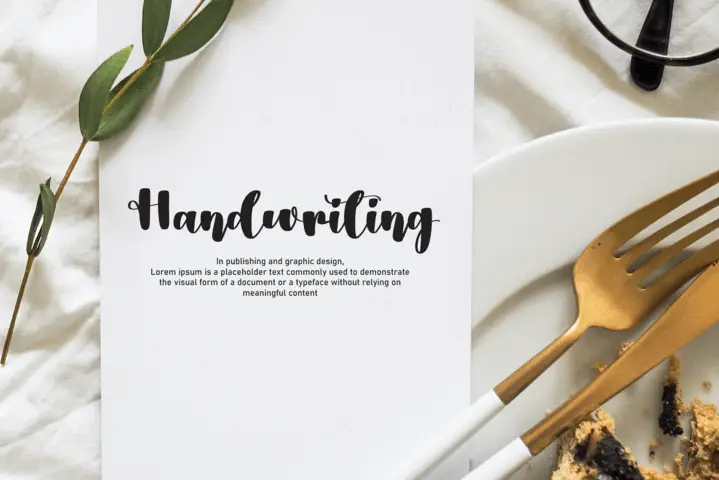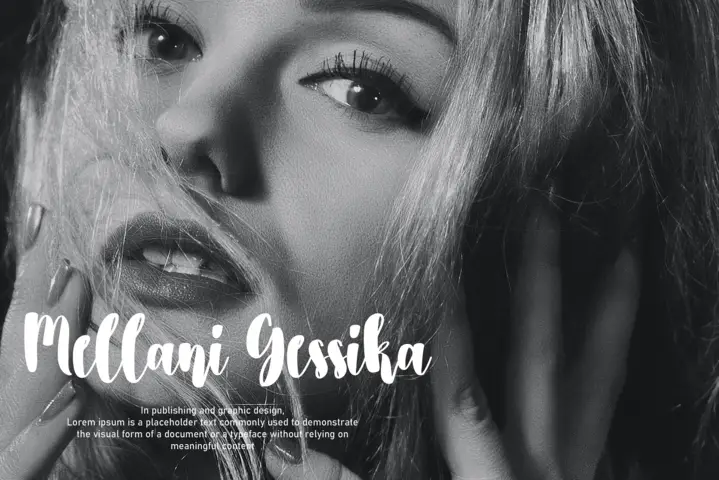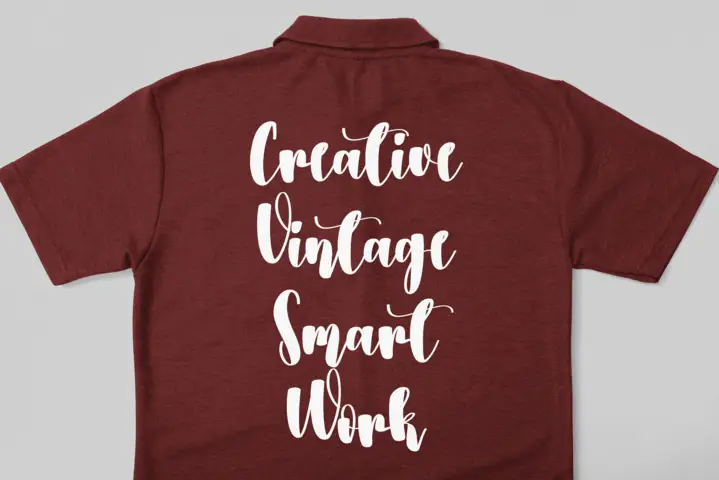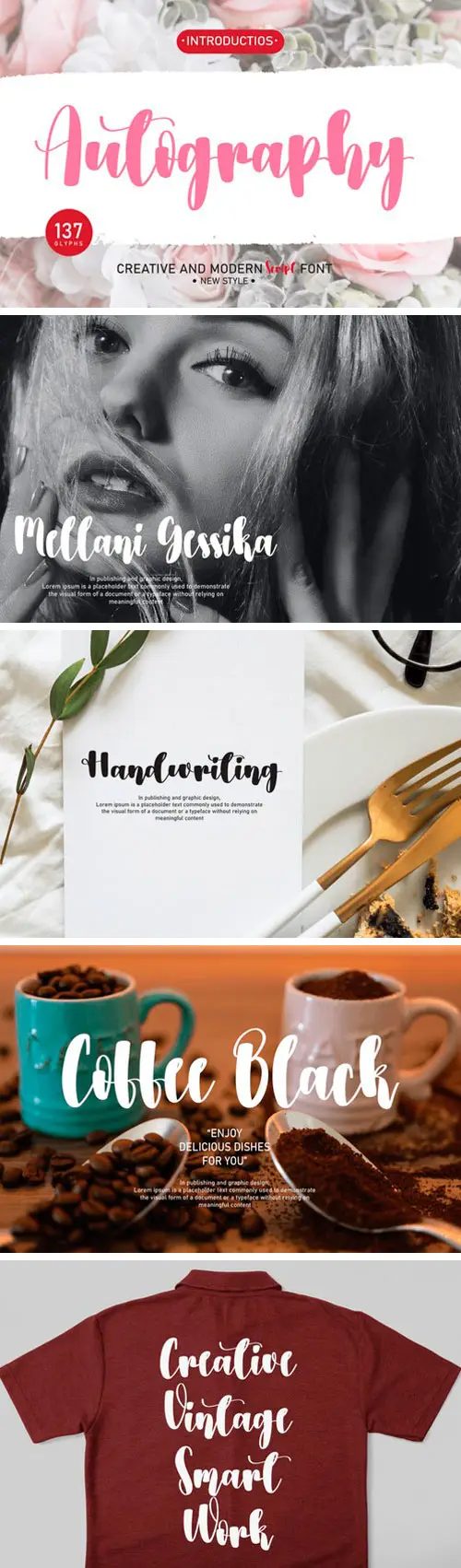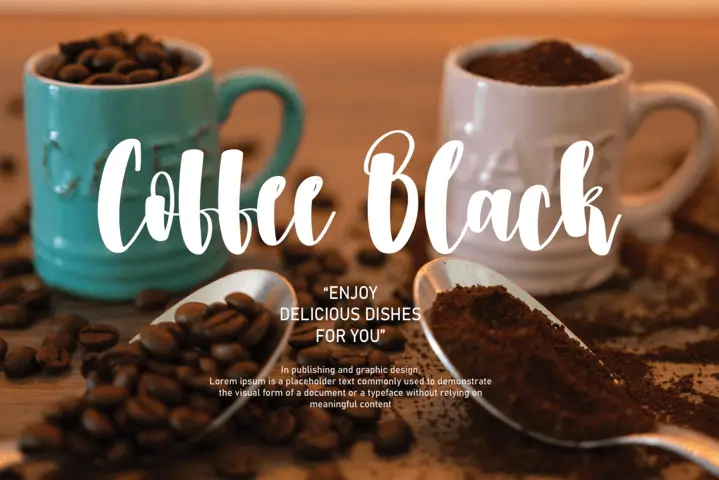
Autography Script Font
The Autography Script Font is a beautifully crafted typeface that captures the essence of handwritten elegance. With its flowing curves and unique character, this font is perfect for a variety of creative projects.
• Stylish script design
• Easy to read at various sizes
Ideal for branding, logos, invitations, and other print materials. Perfect for web design and UI elements where a personal touch is desired.